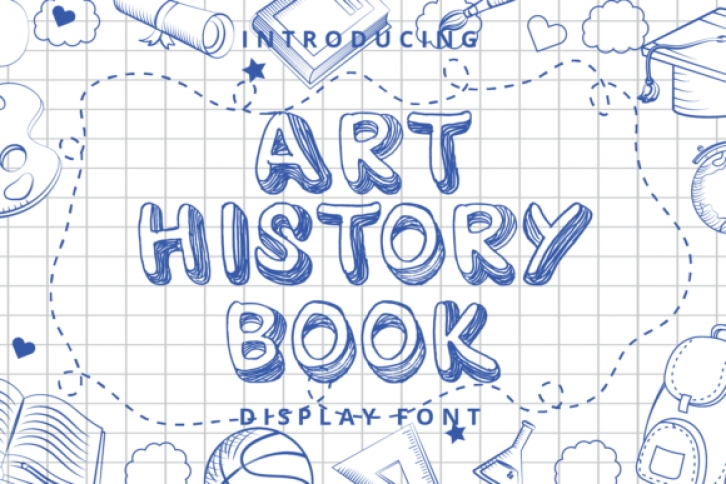
Art History Book is a cool outlined display font. Its cute style makes it incredibly fitting to a large pool of designs. This font would be ideal for writing web designs, business cards, or pretty much anything else that requires a unique touch.